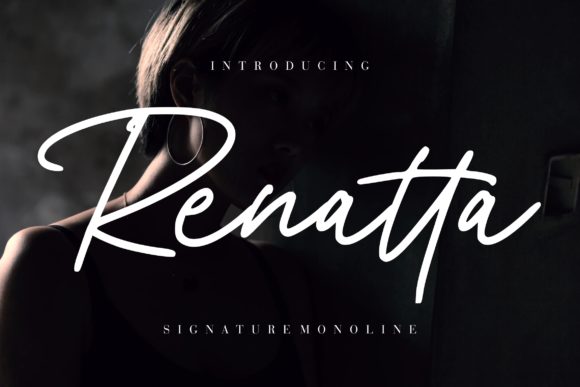
In the realm of captivating fonts, Renatta, a remarkable creation from CreatypeStudio, emerges as a radiant star. Its graceful strokes ignite a symphony of emotions, effortlessly weaving words into a captivating tapestry. Renatta is not just a font; it's an expression, a mirror to your soul, inviting you to share your innermost feelings through the art of written words.
Renatta's cursive nature is a testament to its inherent elegance, flowing effortlessly like the finest silk, embracing your messages with a touch of intimacy and allure. Its delicate charm dances across digital pages, casting a spell of sophistication on every project it graces.
With Renatta, your words transcend the mundane; they blossom into a visual symphony, commanding attention with their magnetic pull. Its sweeping curves create a rhythm that breathes life into your designs, whether it's a personal letter, an enchanting invitation, or a breathtaking marketing campaign.
Unleash your creativity, embrace the power of expression, and elevate your projects to new heights with Renatta. Dive into a world where fonts are not merely tools; they are extensions of your soul, empowering you to communicate with heartfelt authenticity. Let Renatta become your artistic muse, leading you on a journey of self-expression and creative fulfillment.